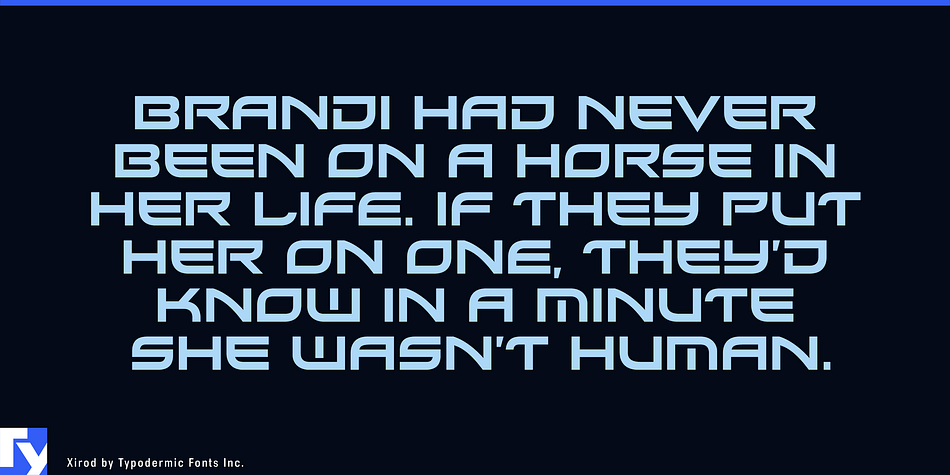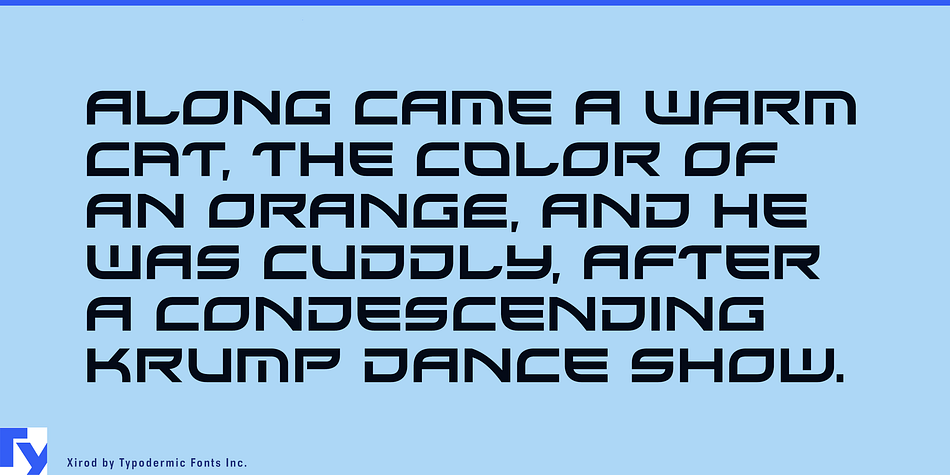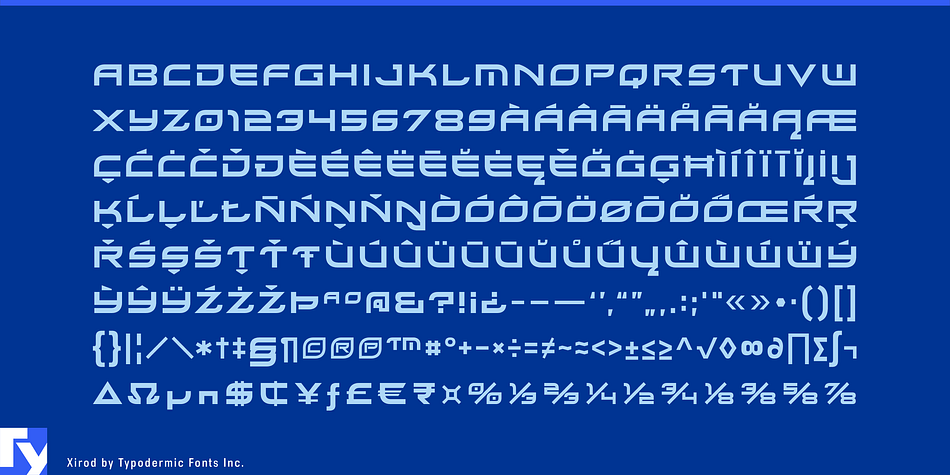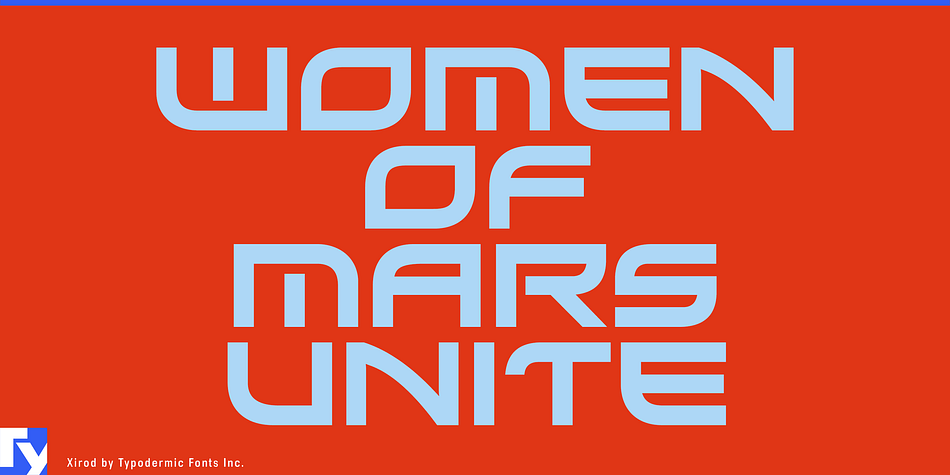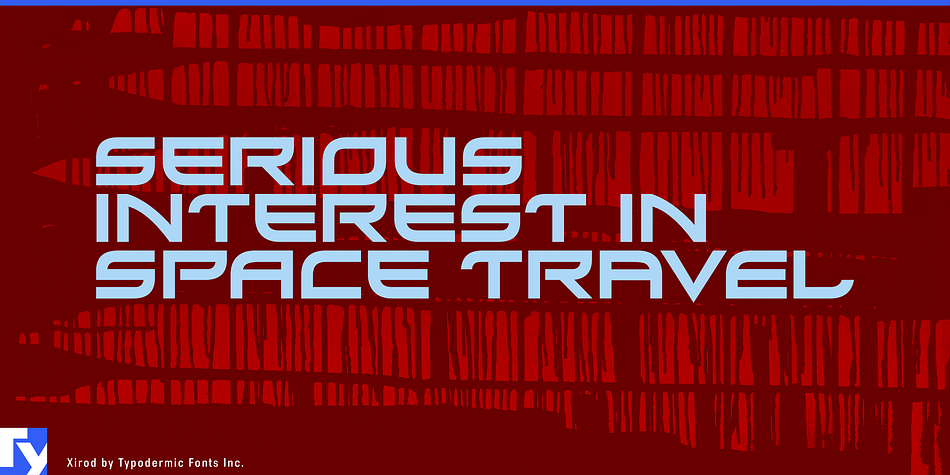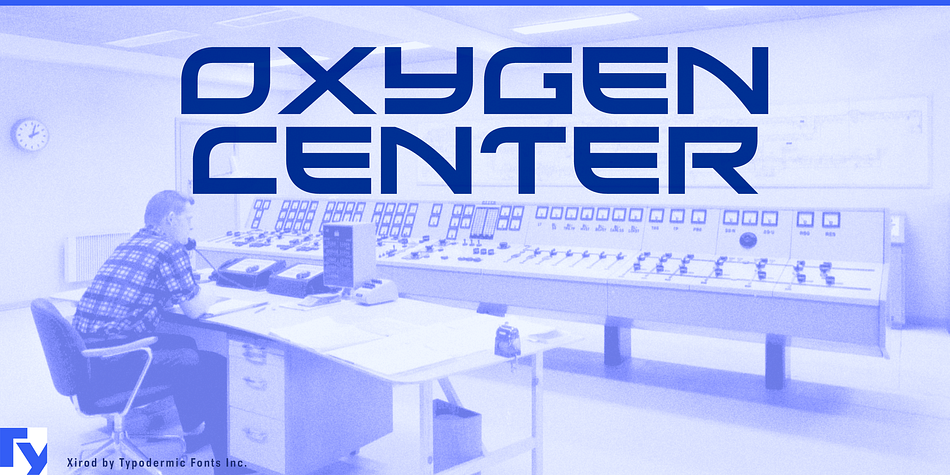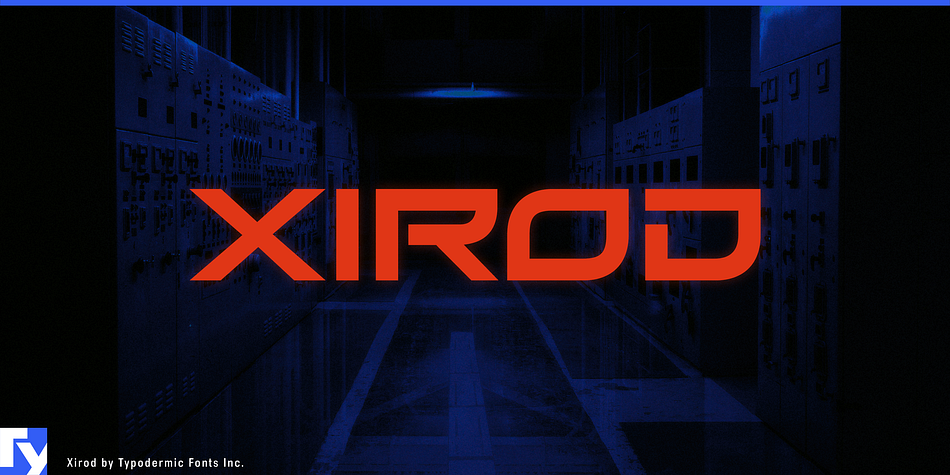
Xirod is a display sans font published by Typodermic Fonts Inc.
Xirod is a square, sci-fi techno headline font. In OpenType savvy applications, letters change in order to harmonize with adjacent letters. Strange alternate letters can be accessed using the OpenType “Stylistic Alternates” feature.
Xirod has been updated with improved vertical metrics for cross-browser web performance. More languages are supported and accents have been redesigned. Spacing and kerning has been improved. More punctuation and math symbols have been added, as well as fractions and numeric ordinals.